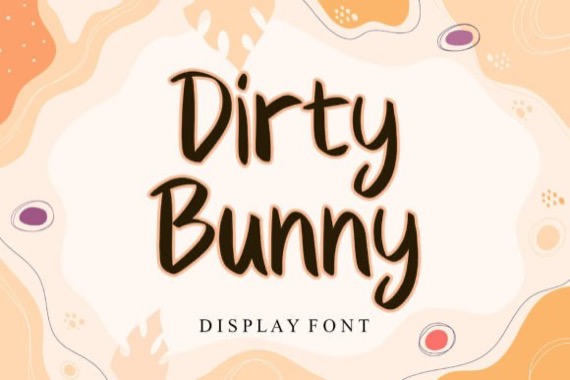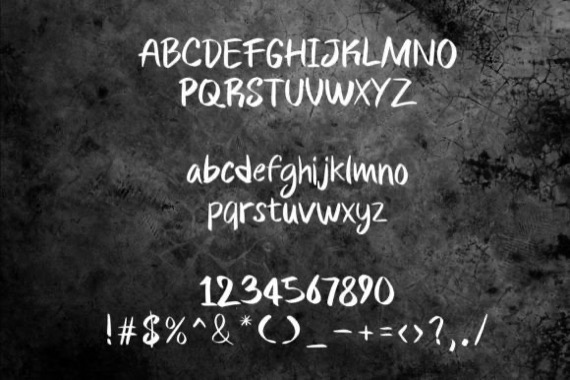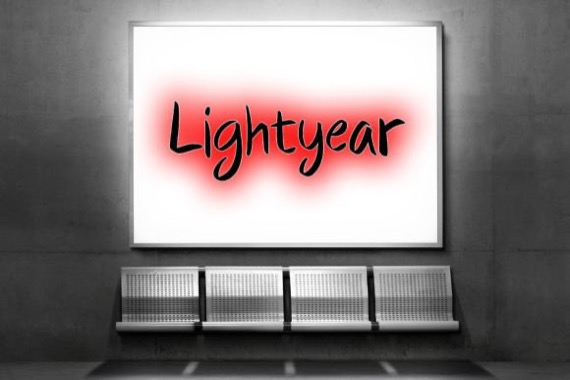
Dirty Bunny is a classy and chic display font that was created and shared by Letterafa Studio. That font is perfect for logos, greeting cards, package design, brand identity, craft design, any DIY project, book title, wedding invitation, packaging, another Christmas project, and more.
Dirty Bunny Display Font